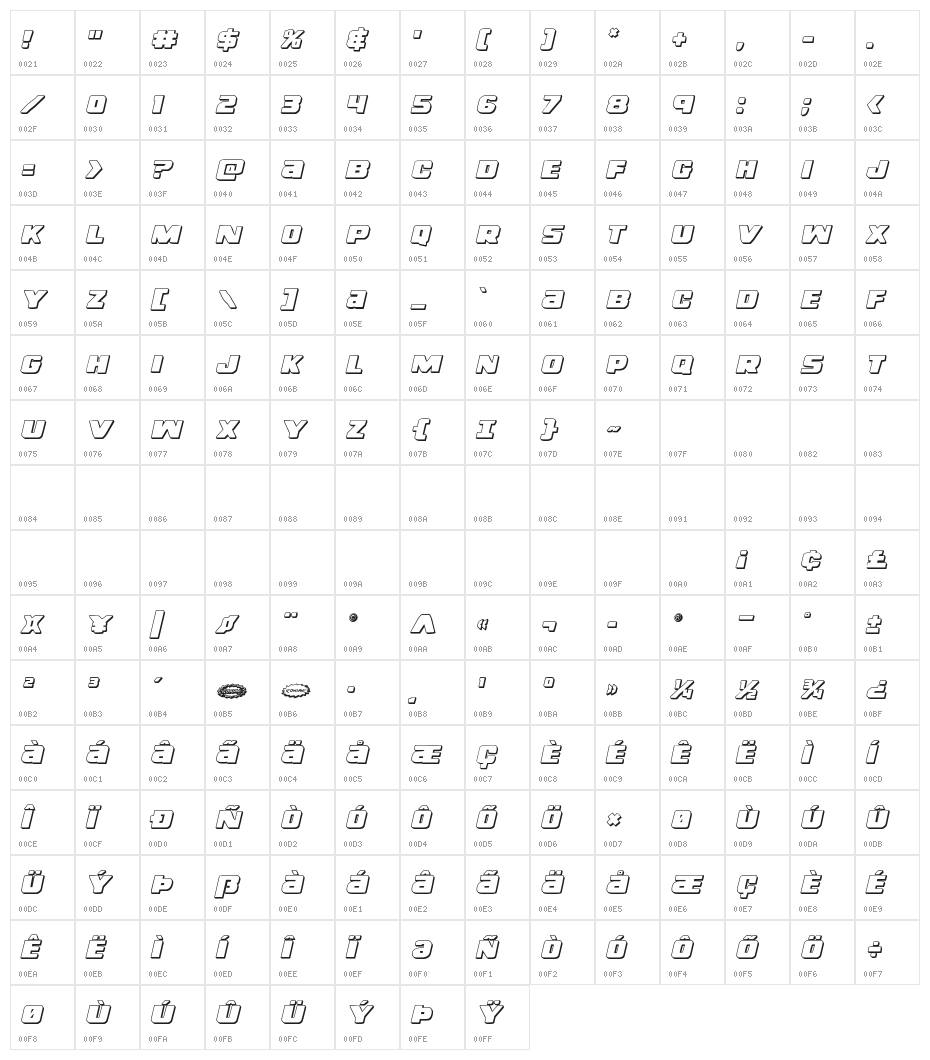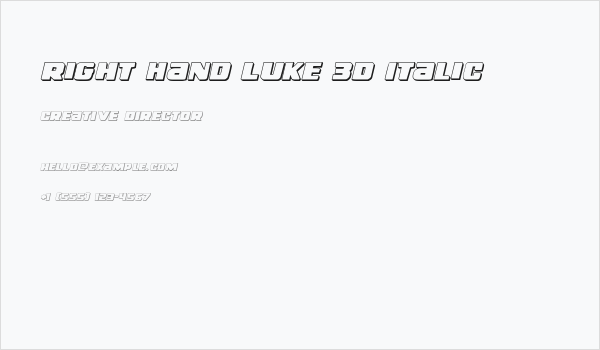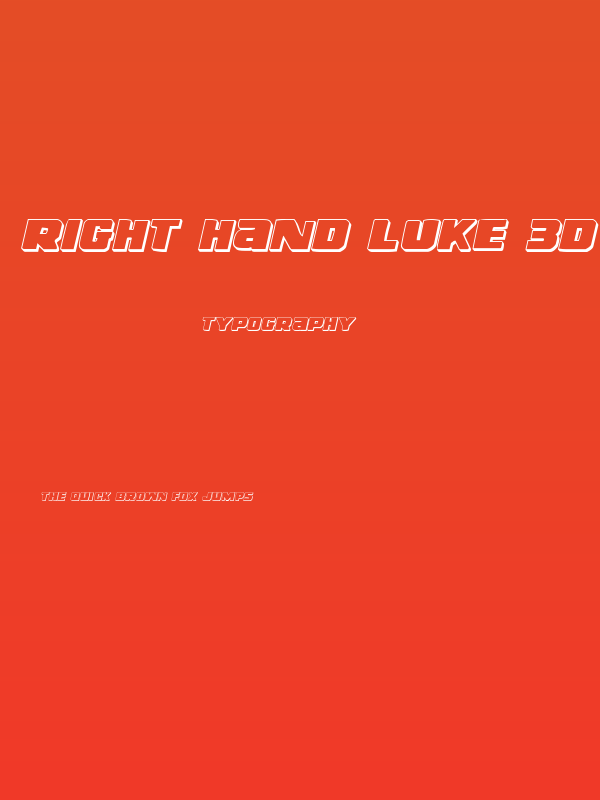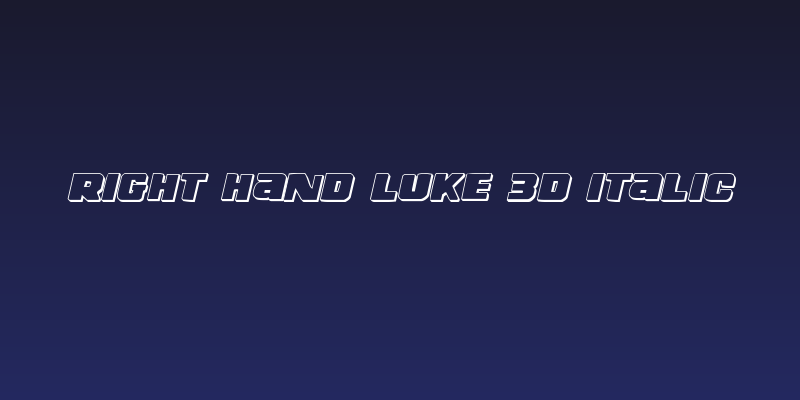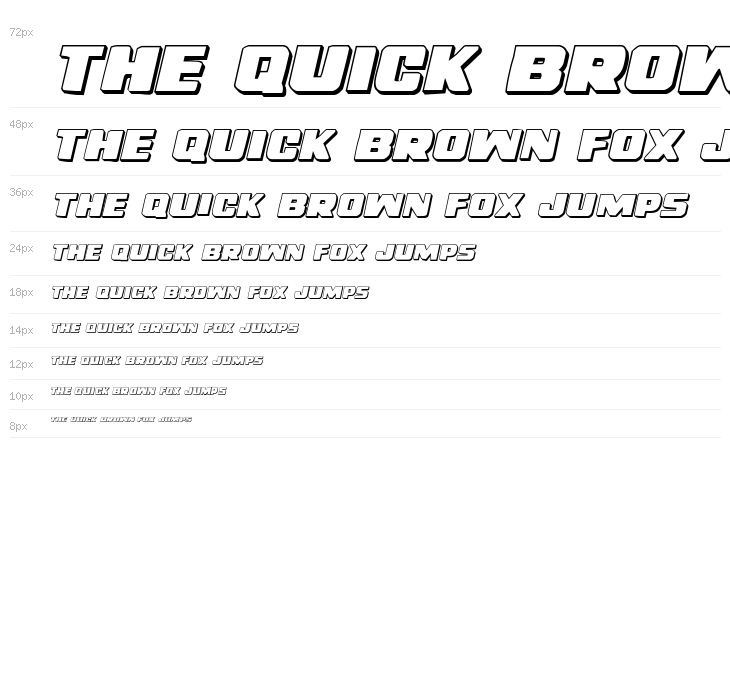
Right Hand Luke 3D Italic Font
Right Hand Luke 3D Italic Description
This font features a bold, three-dimensional style with a strong italic slant, giving it a dynamic and modern appearance. The characters are outlined, creating a striking visual effect that enhances readability while maintaining a unique aesthetic. The uppercase and lowercase letters are consistent in style, with a uniform thickness that adds to the font's cohesive look. The numbers and special characters follow the same design principles, ensuring versatility across various applications. The font's boldness and 3D effect make it ideal for attention-grabbing designs.
| Proposed Projects | Ideal for posters, logos, video game graphics, and any project requiring a bold, eye-catching typeface. |